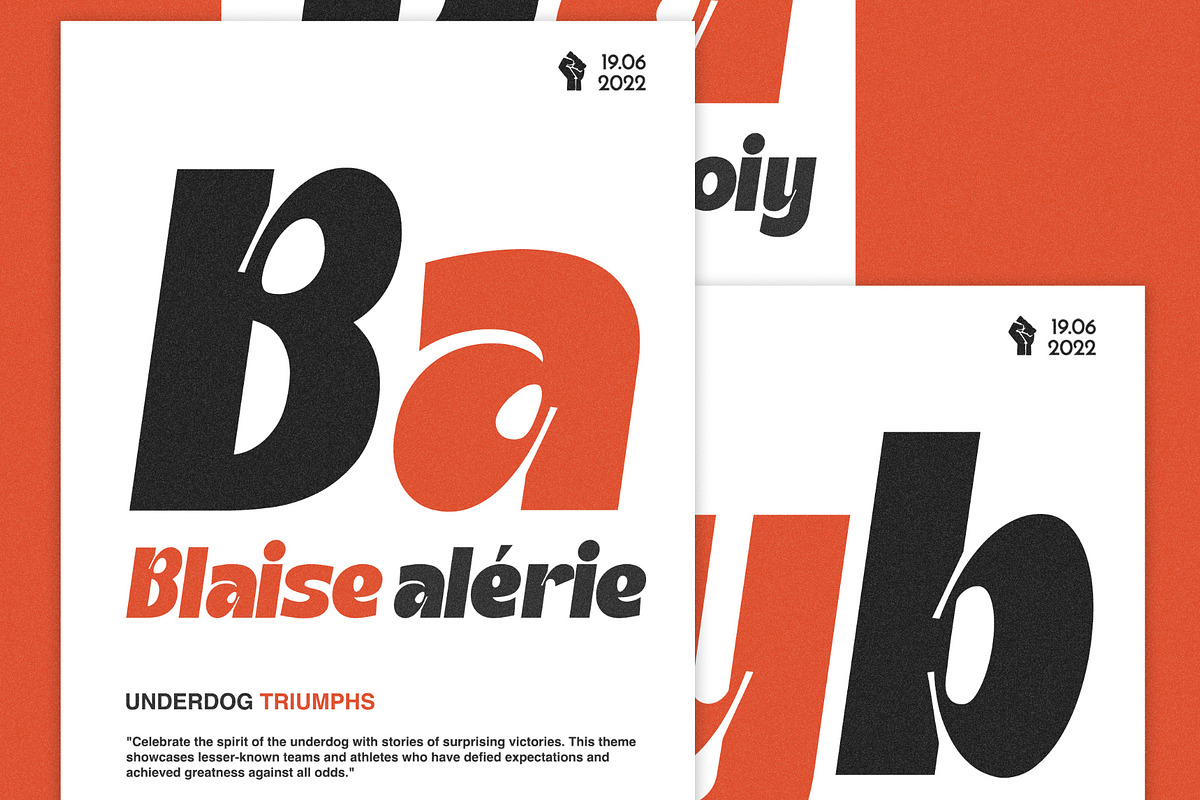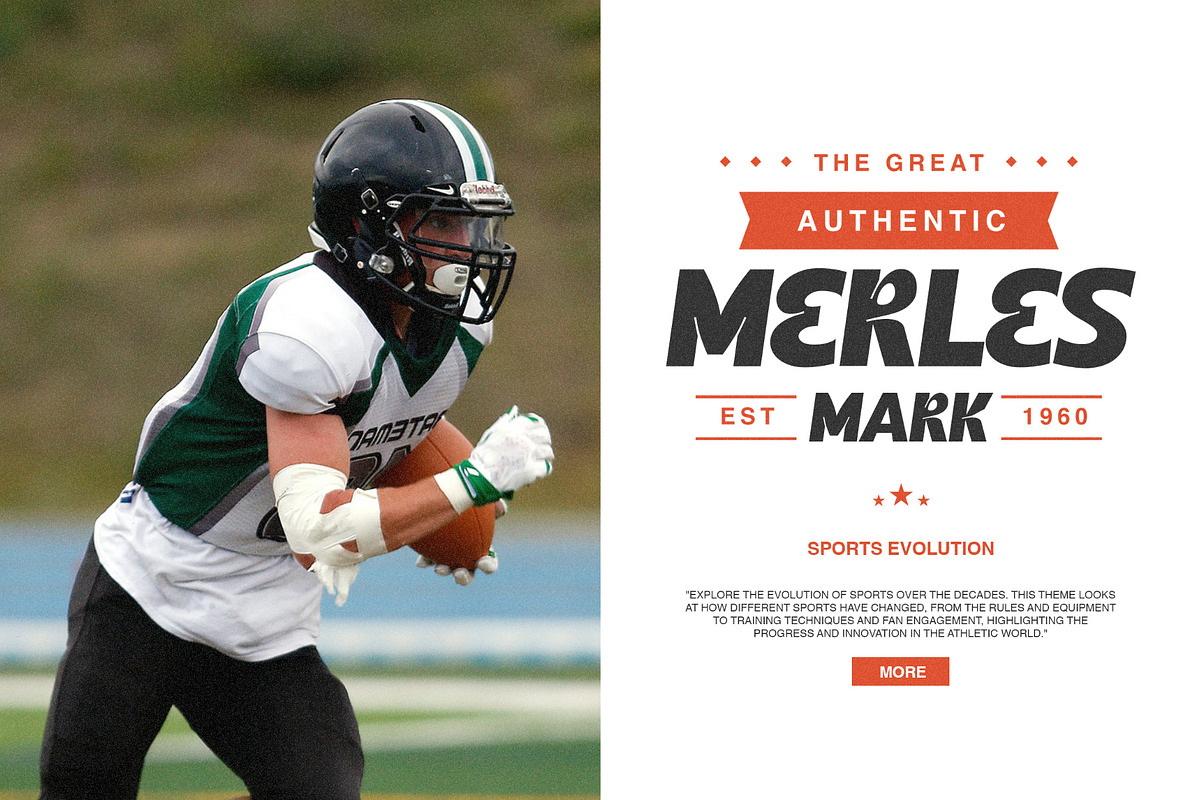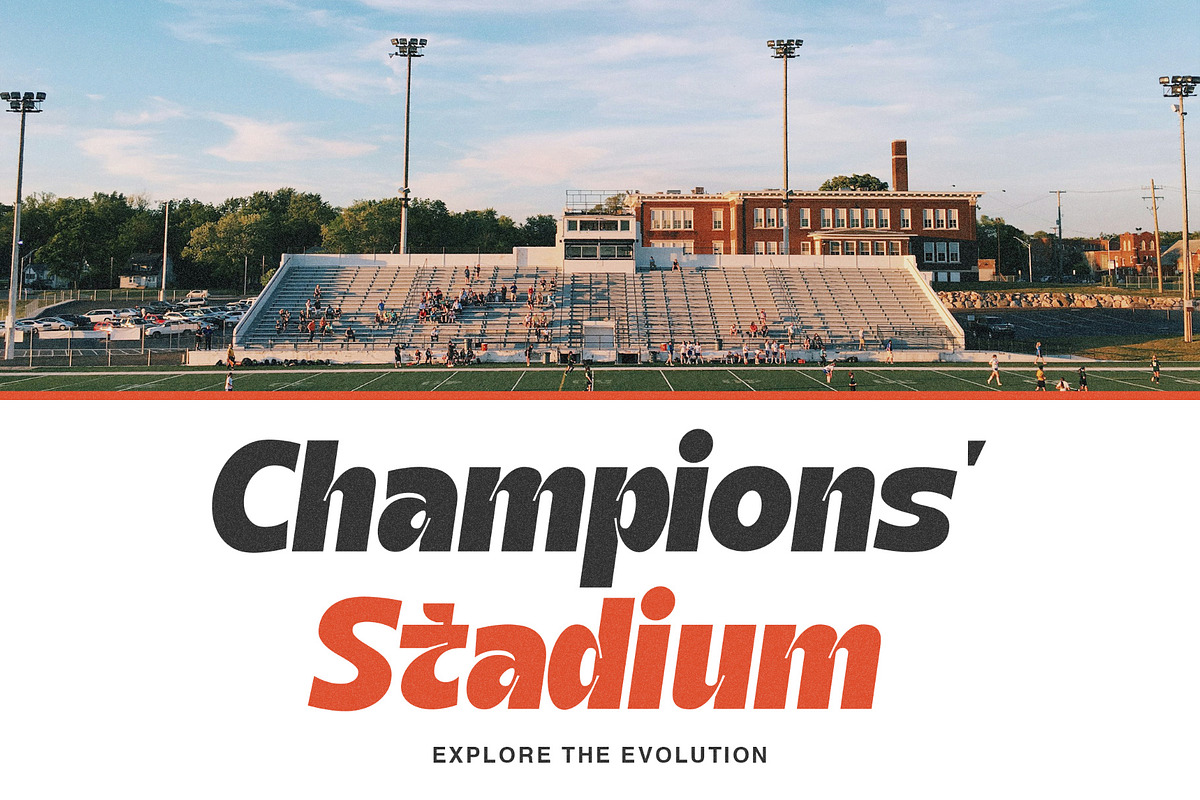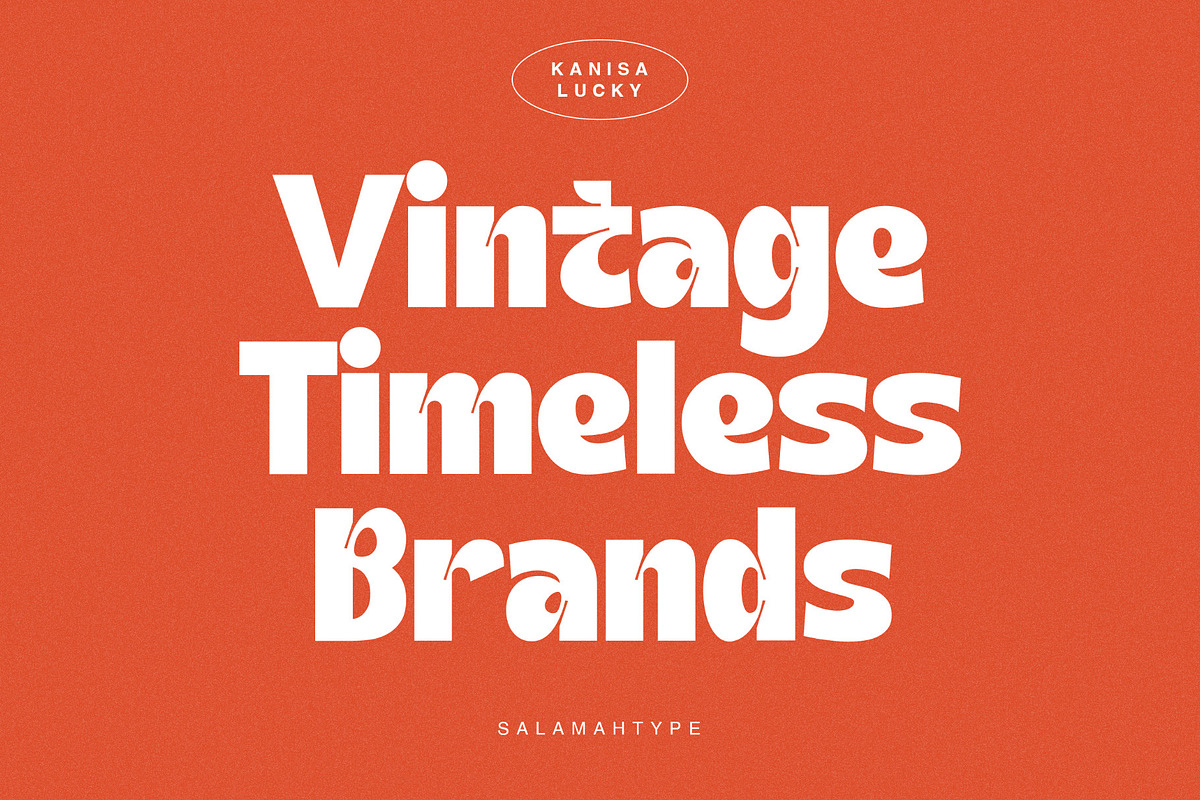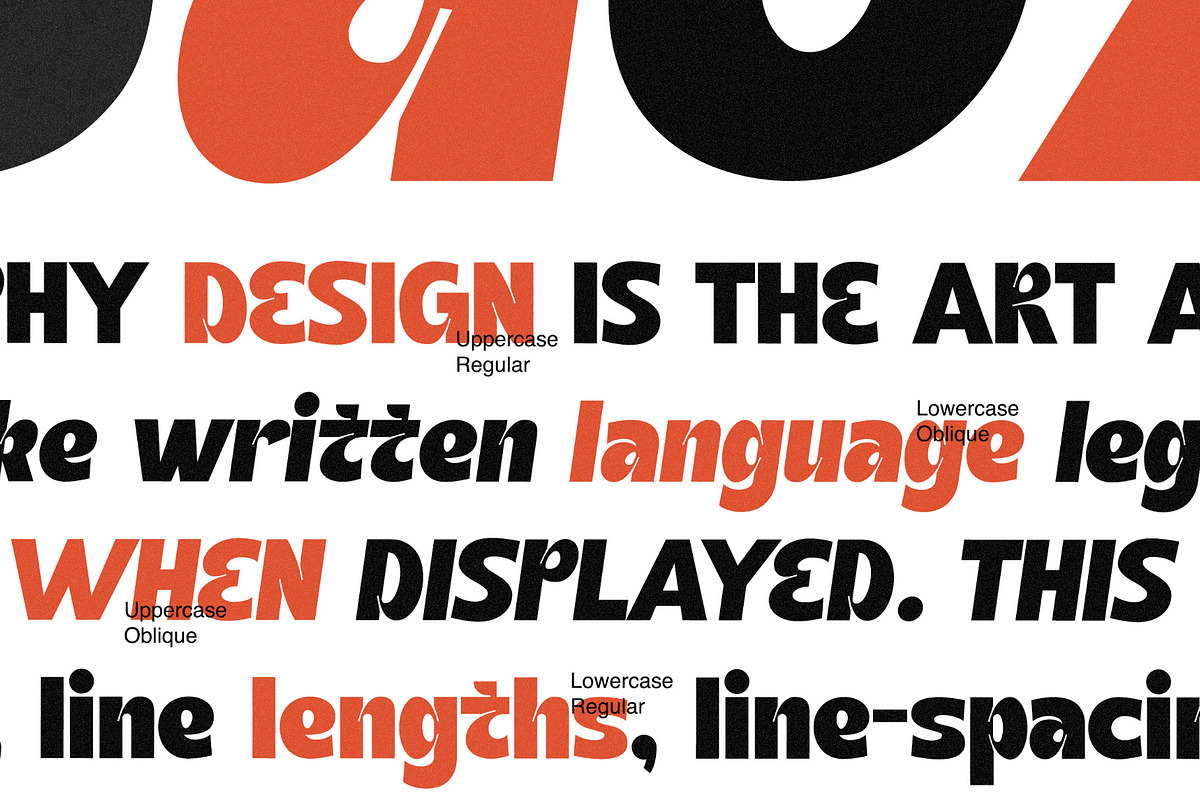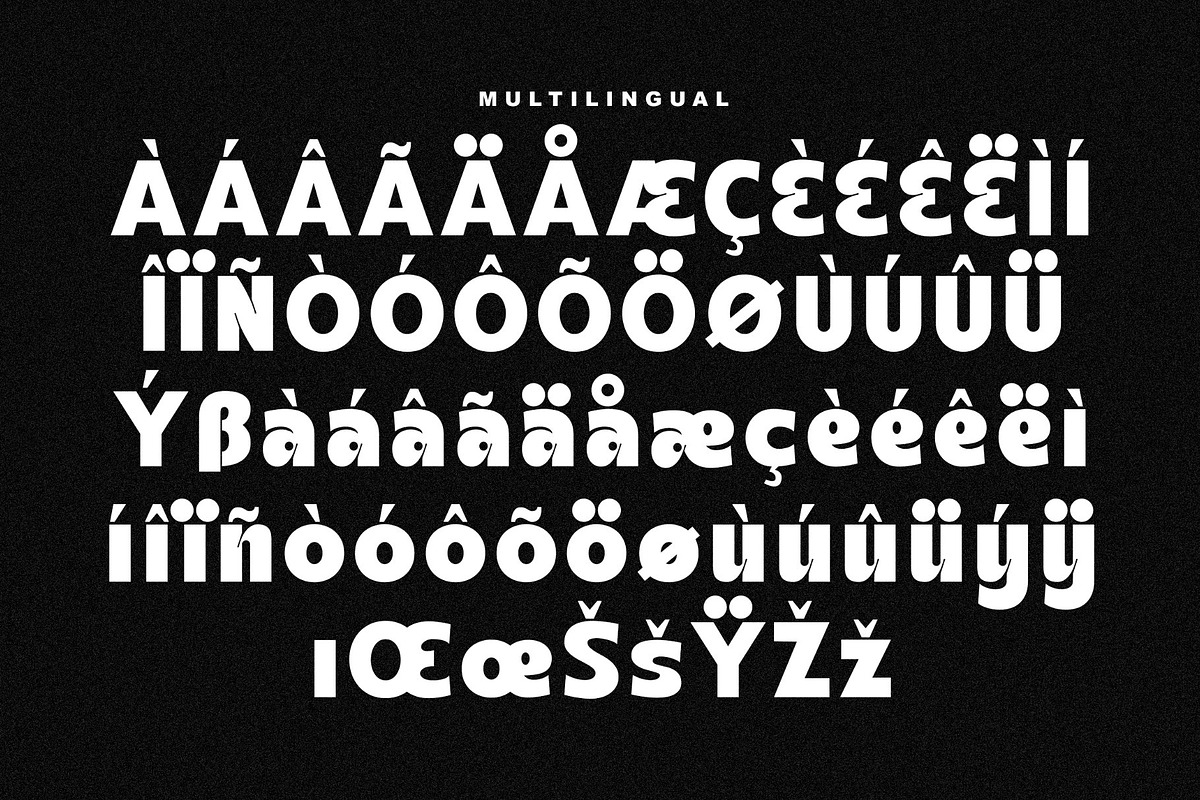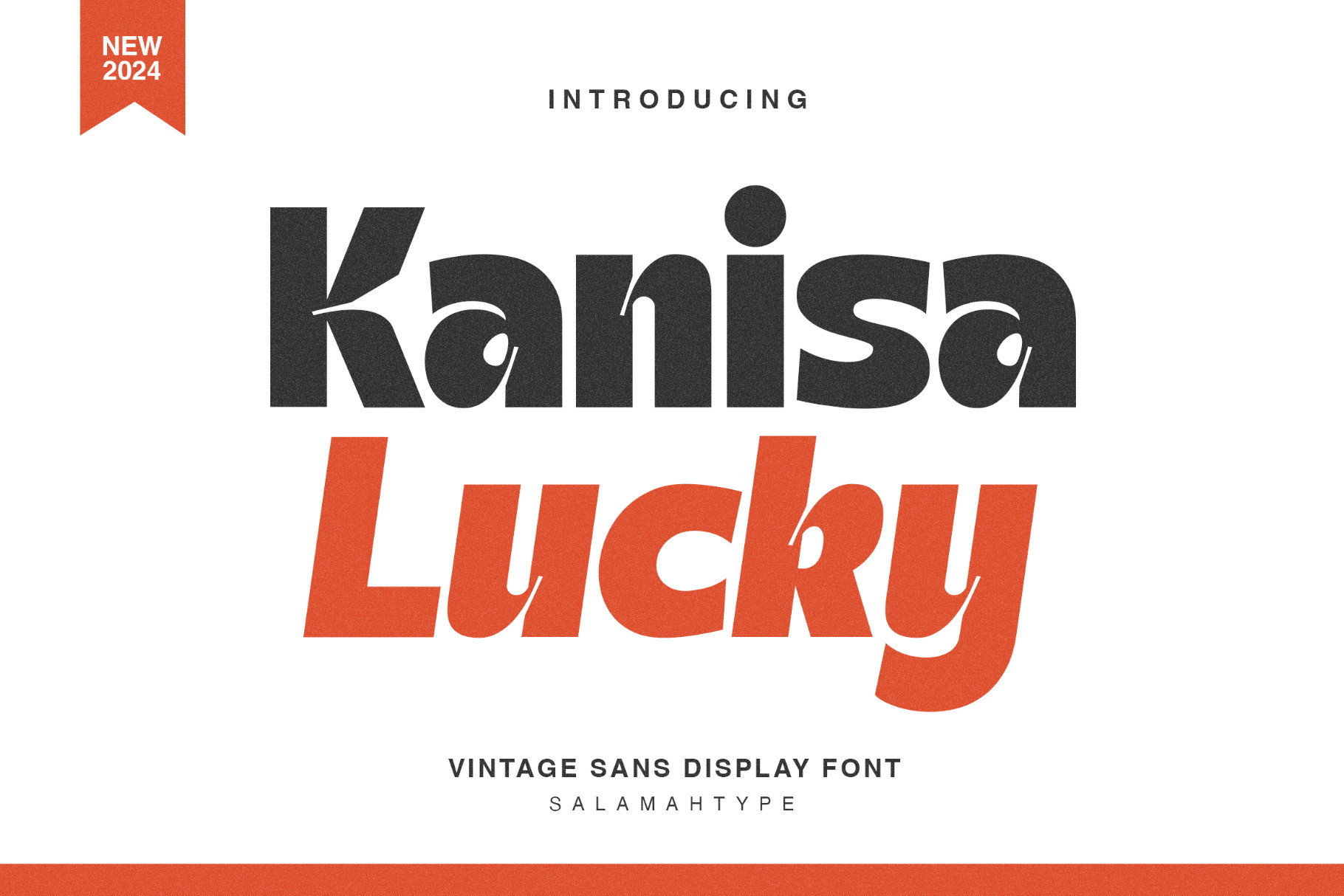
Kanisa Lucky - Stylish Bold Font
The “Kanisa Lucky” font is a bold typeface featuring an ink trap style, making it an excellent choice for logos, headlines, sport flyers, magazines, books, and other print media. It comes in two styles: regular and oblique.
- Regular and Oblique Style
- Symbols and Punctuation